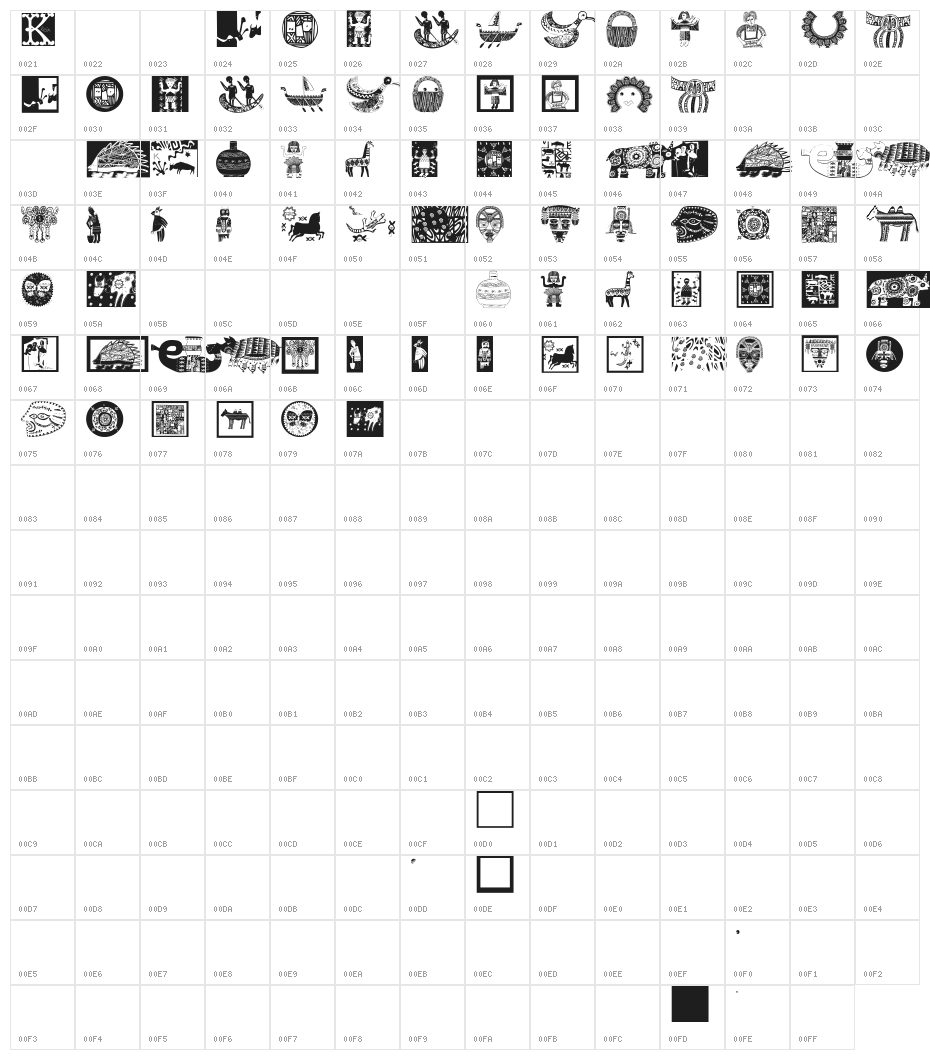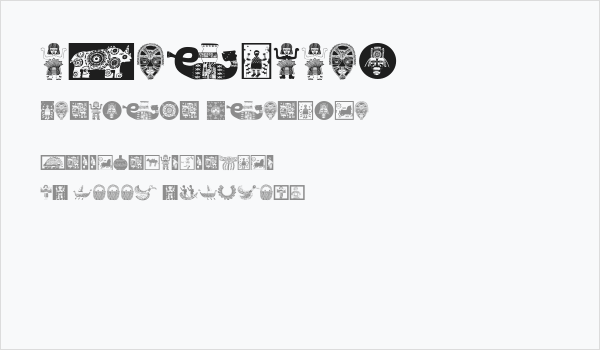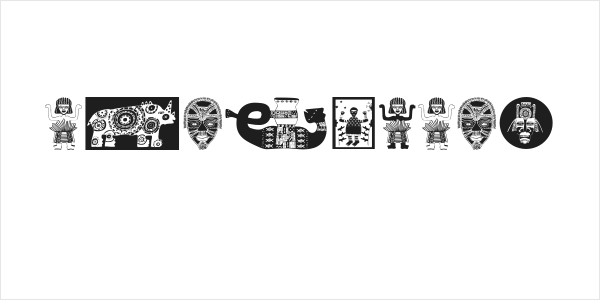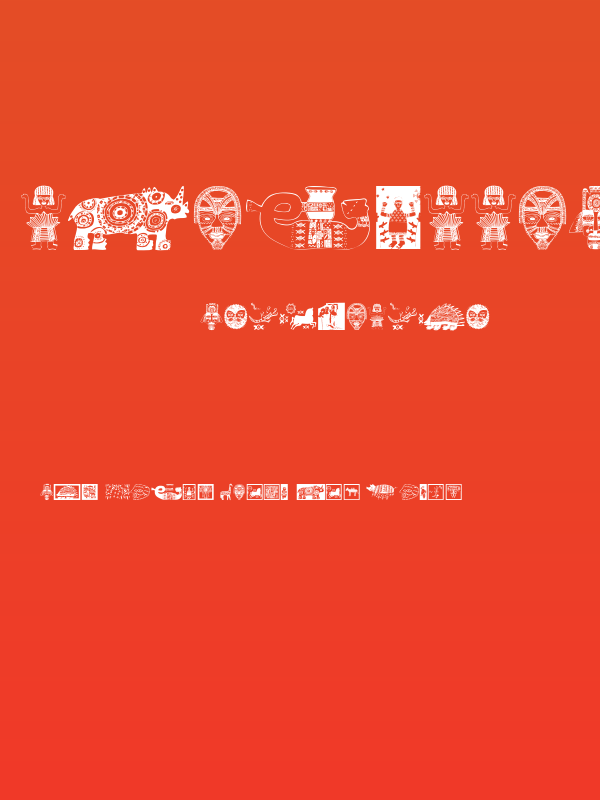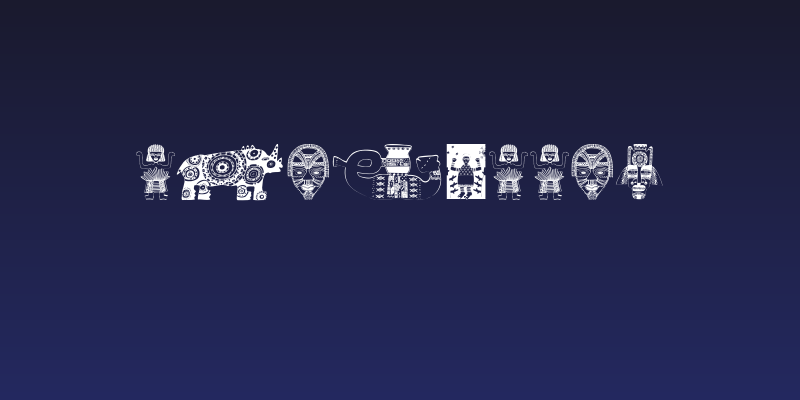
AfricaArt Font
AfricaArt Description
This is not a traditional font but rather a collection of artistic symbols and illustrations inspired by African art. Each character is represented by a unique design, incorporating elements such as animals, masks, and cultural motifs. The designs are intricate and detailed, showcasing a variety of patterns and textures. The overall style is decorative and expressive, capturing the essence of African artistic heritage. These symbols are more suited for decorative purposes rather than textual communication.
| Use Case | Logos, Art projects, Cultural displays |
| Proposed Projects | Ideal for cultural projects, art exhibitions, educational materials on African art, and decorative purposes in design projects. |